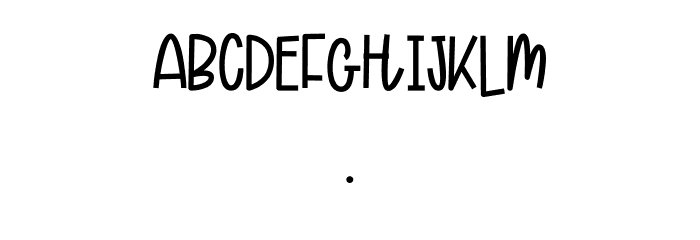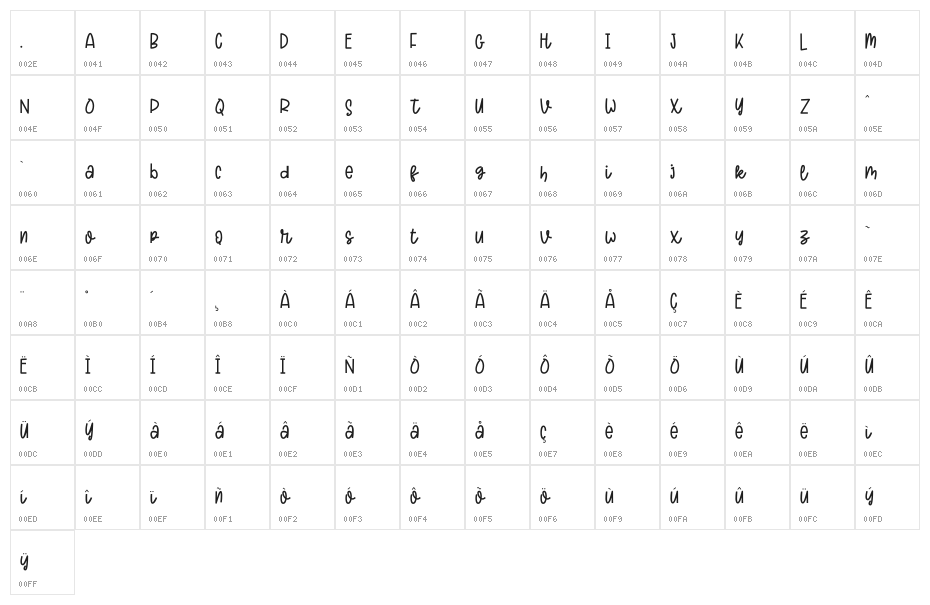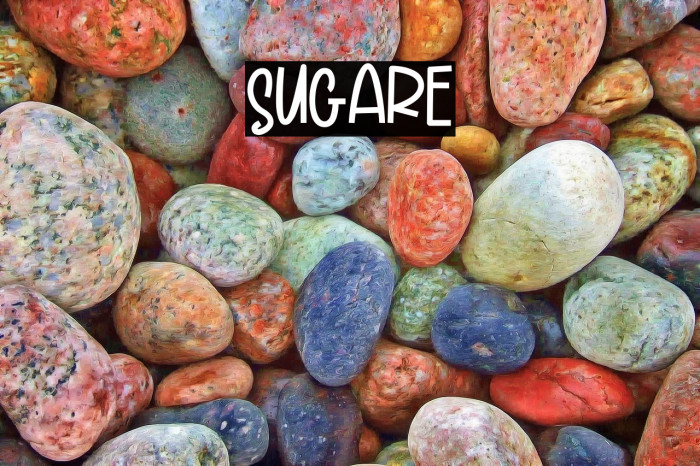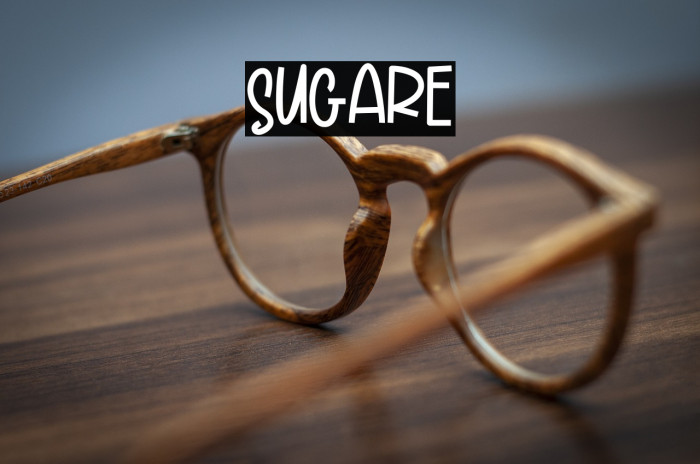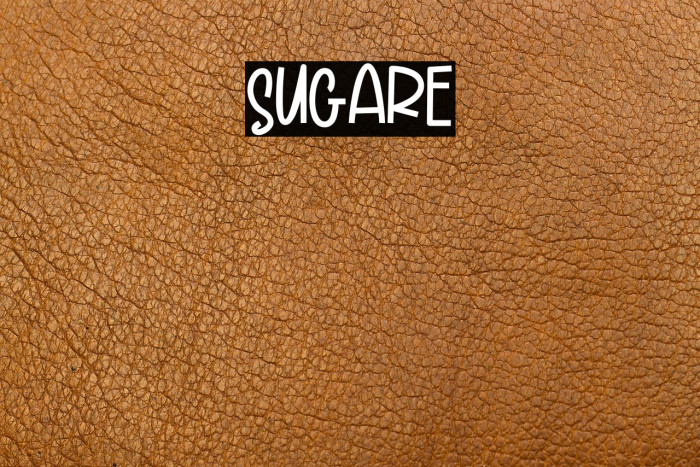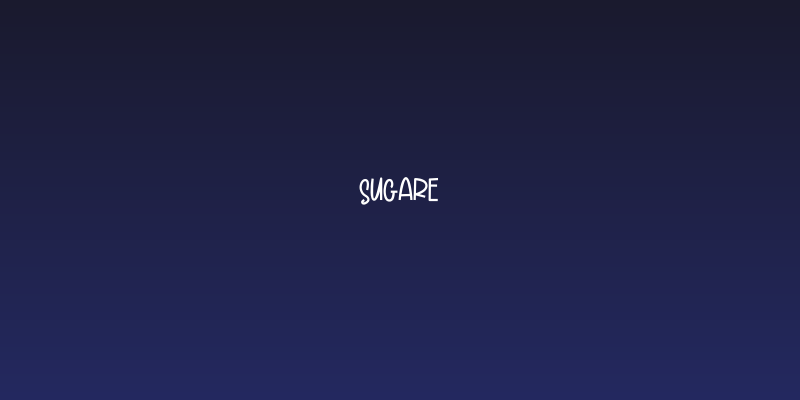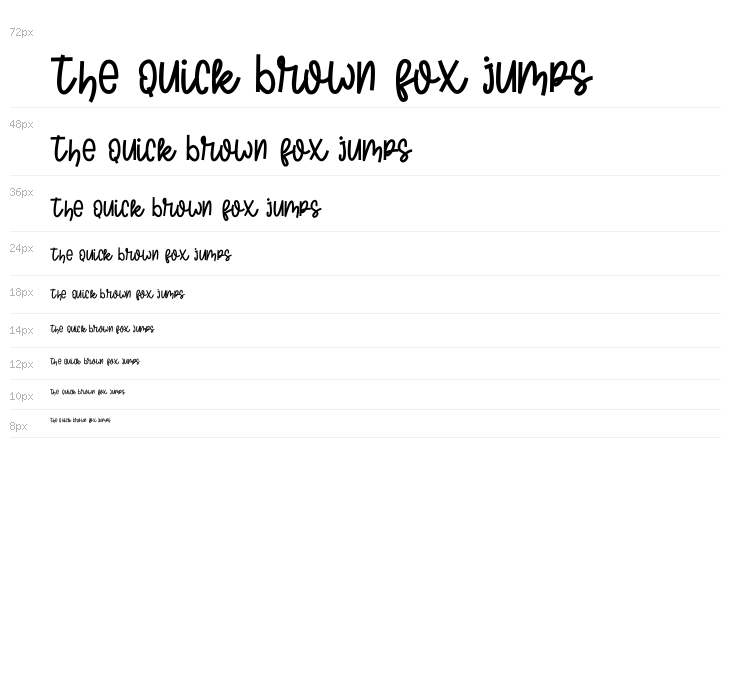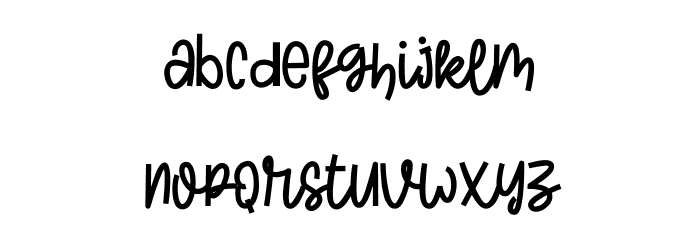
SUGARE Font
SUGARE Description
This playful and energetic font features a handwritten style with a casual, friendly appearance. The letters are slightly slanted, giving it a dynamic feel, while the rounded edges and smooth curves add a touch of warmth and approachability. The uppercase and lowercase letters maintain a consistent flow, with some characters exhibiting unique flourishes that enhance its whimsical nature. The font's overall design is well-suited for projects that require a personal touch or a sense of fun and creativity.
| Use Case | Logos, Headlines, Social media graphics |
| Proposed Projects | Ideal for greeting cards, children's books, playful branding, and social media graphics. |